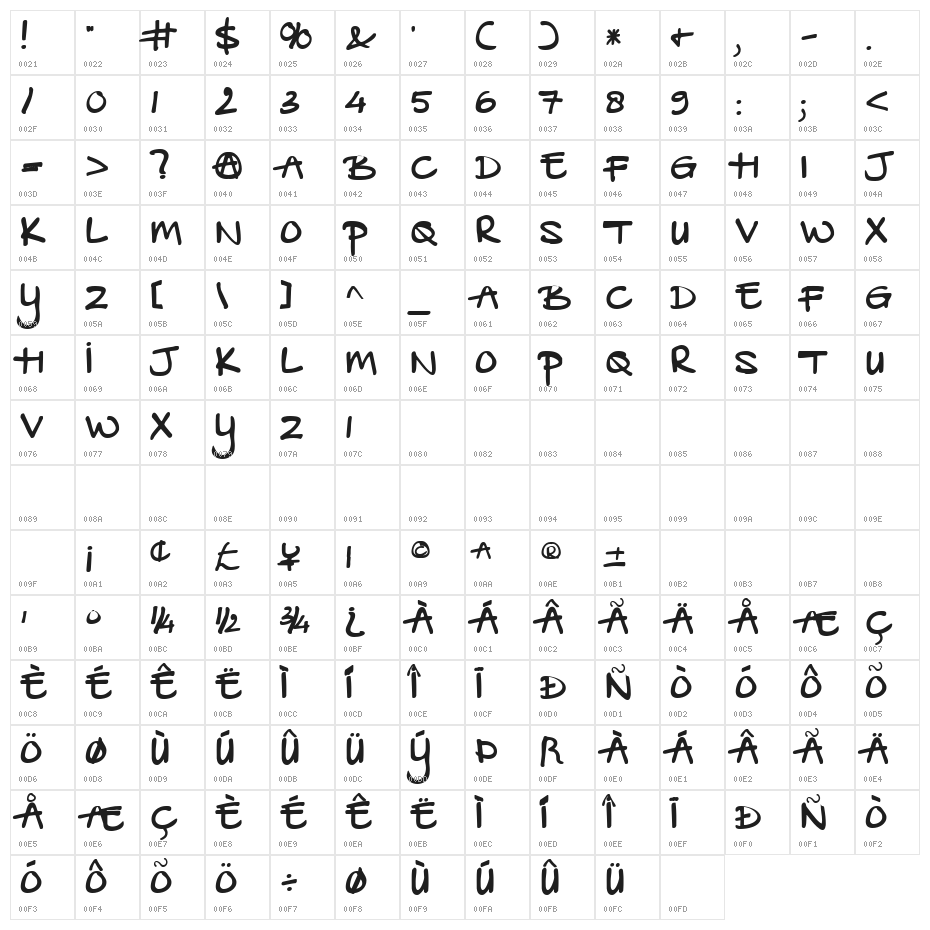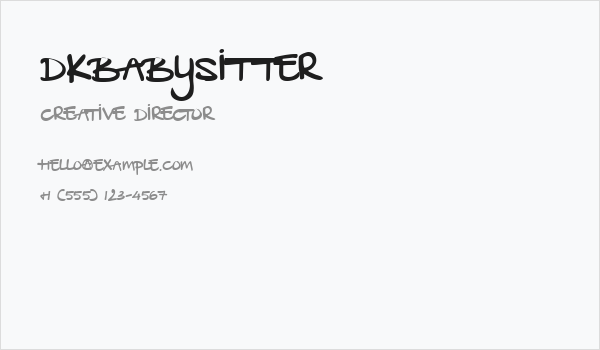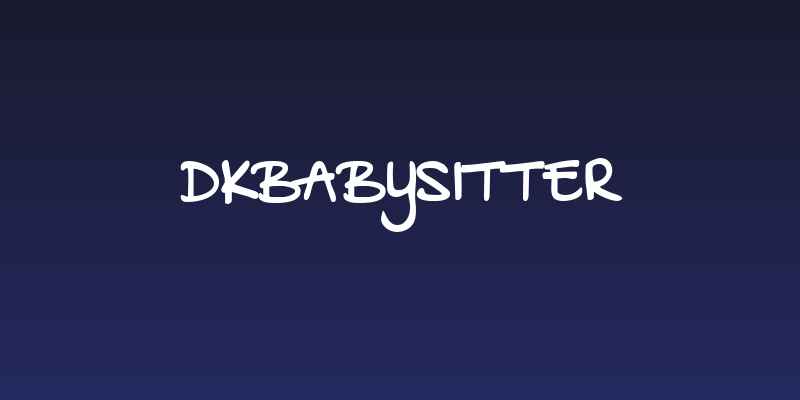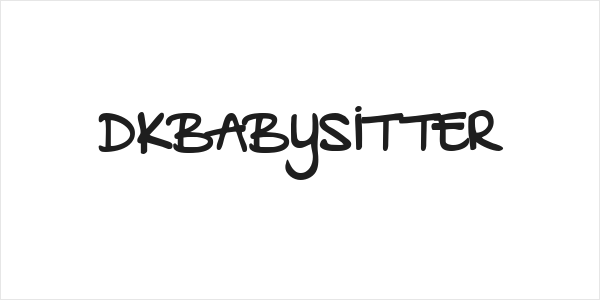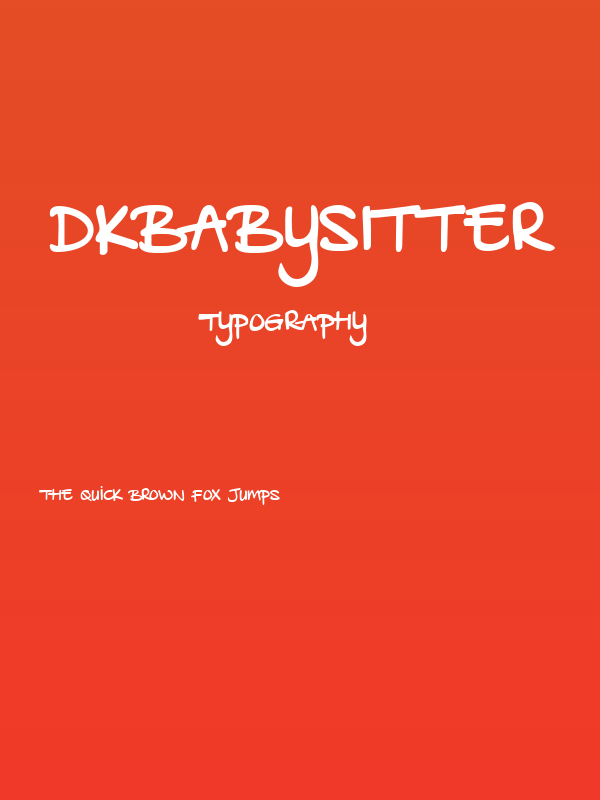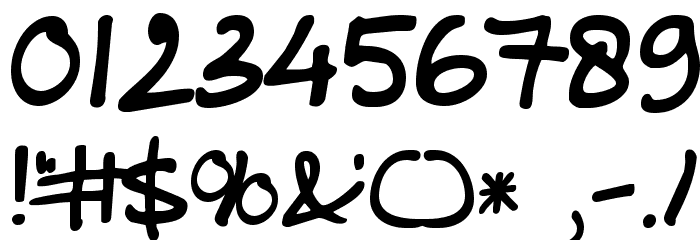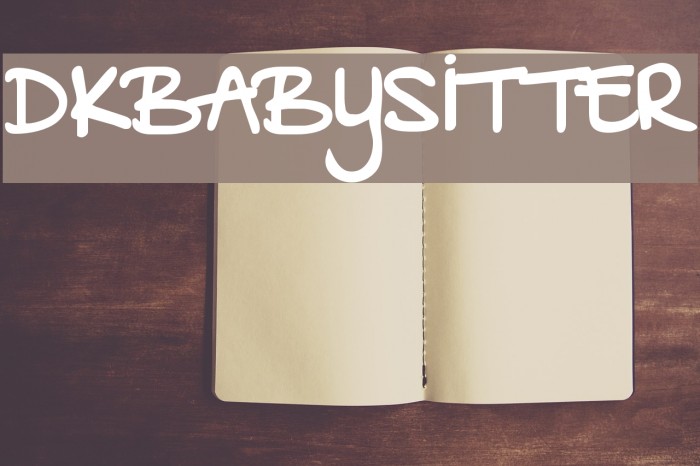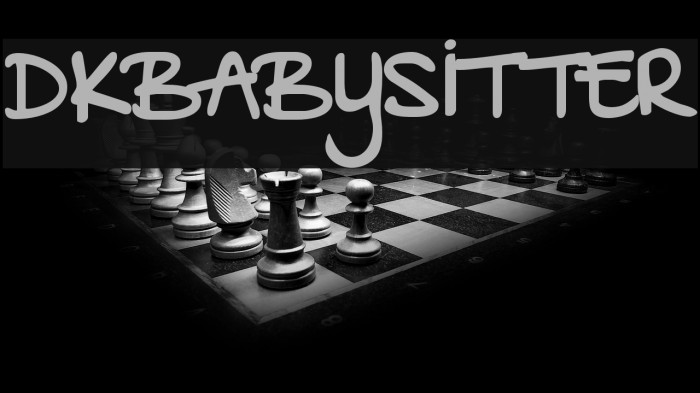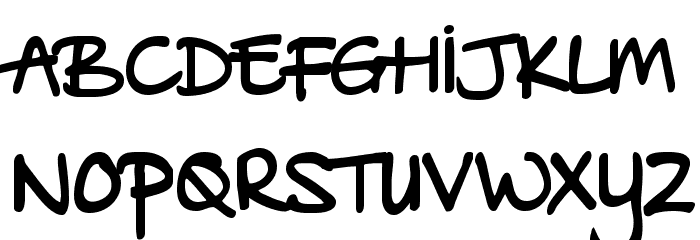
DKBabysitter Font
DKBabysitter Description
This playful and energetic font features a handwritten style with a casual, friendly appearance. The letters are bold and rounded, giving them a soft, approachable feel. The uppercase and lowercase characters maintain a consistent flow, with slightly exaggerated curves and loops that add to the font's whimsical nature. The numbers and special characters are equally expressive, ensuring a cohesive look across all text elements. This font is perfect for projects that require a touch of fun and personality, such as children's books, playful branding, or informal invitations.